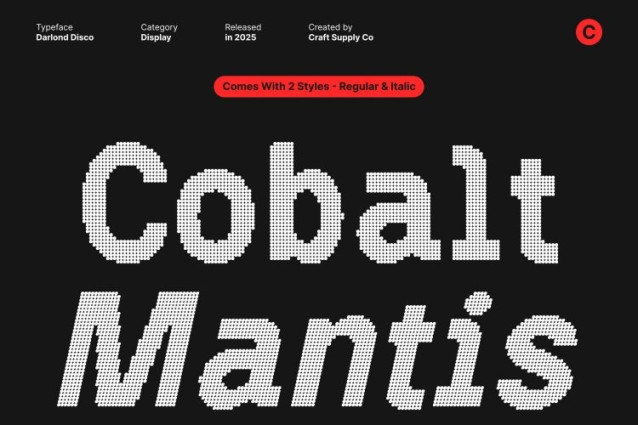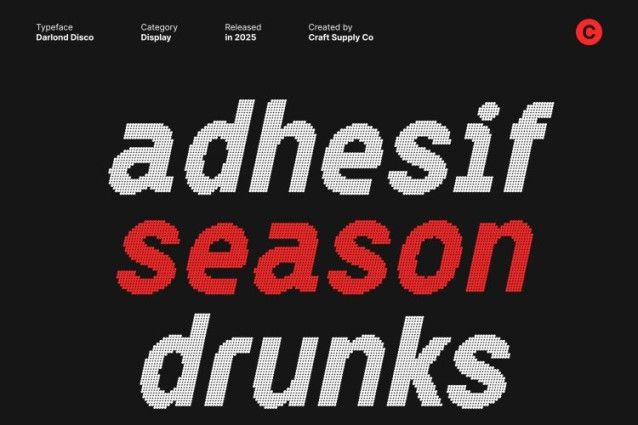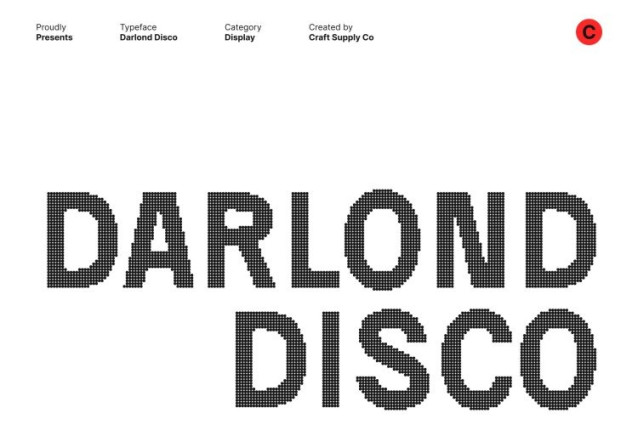
Darlond Disco Font
Darlond Disco Font This is a bold sans serif display font designed to capture attention with its strong, contemporary letterforms. Each character is carefully crafted with modern shapes that convey confidence and energy, making it perfect for designers looking to create high-impact headlines and focal text.
Disco Effect for Vibrant, Dynamic Energy
The signature disco effect adds shimmering sparkle and lively vibration to every letter. This playful detail infuses the font with glamour and movement, transforming ordinary text into dynamic, eye-catching typography that shines in any layout.
Perfect for Headlines, Branding, and Posters
Ideal for display use, excels in a variety of design applications. From bold posters and impactful headlines to modern branding and promotional materials, the font delivers a visually striking presence that demands attention while maintaining readability and clarity.
Contemporary, Lively, and Expressive
This font combines bold structural design with energetic disco-inspired accents to create a typeface that is both modern and expressive. Its vibrant aesthetic and confident shapes make it a versatile choice for designers aiming to infuse their projects with style, excitement, and visual flair.